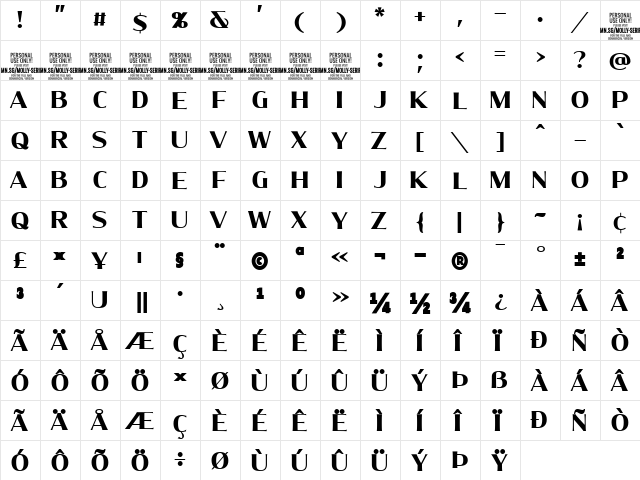
Molly Serif N PERSONAL Bold
Design Context for Molly Serif N PERSONAL Typeface
Molly Serif N PERSONAL carries the refined structure of traditional serif typography, with bracketed terminals and considered proportions that communicate credibility and craft. Its bold stroke weight gives it real presence on the page.
Pro Tip: Use Molly Serif N PERSONAL for editorial body copy and considered headline work. Pair with a neutral sans for UI elements or captions to create a classic hierarchy.